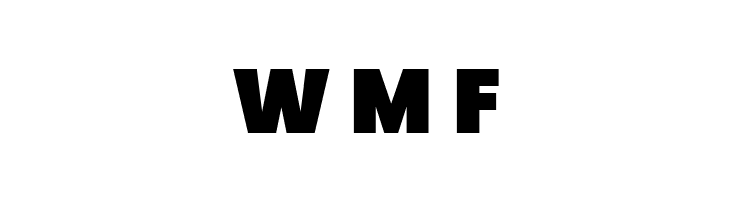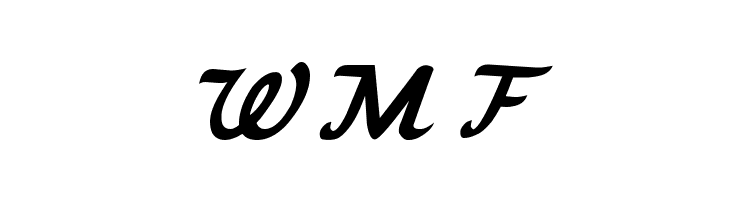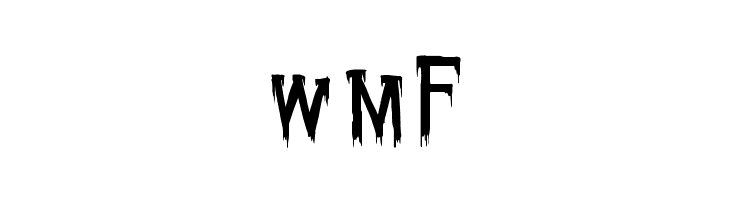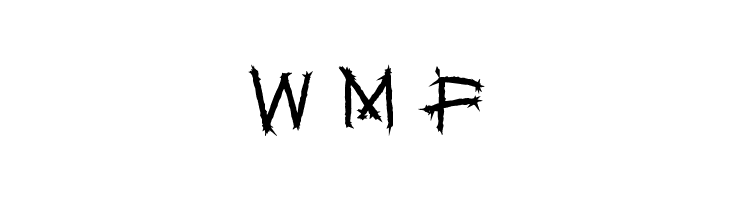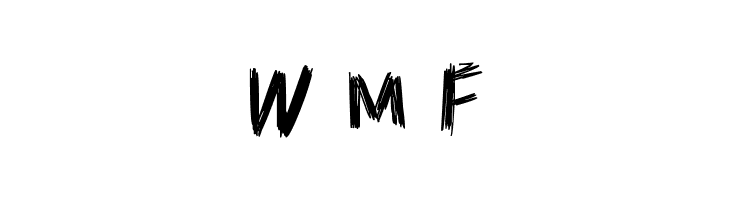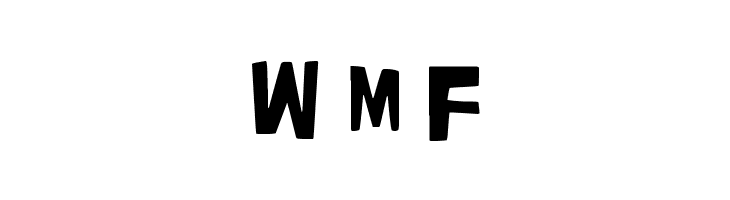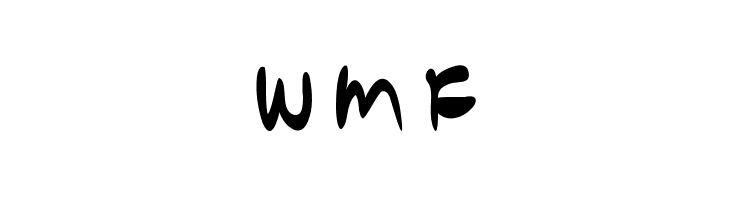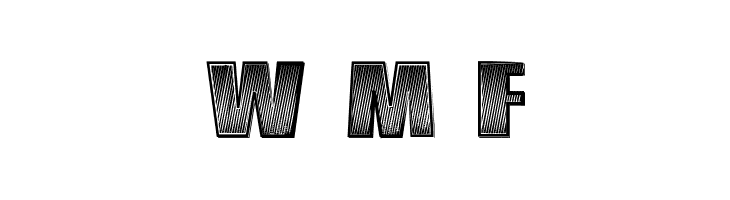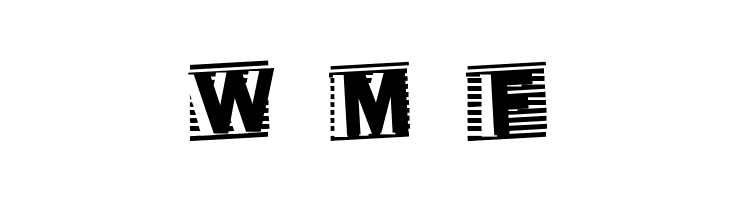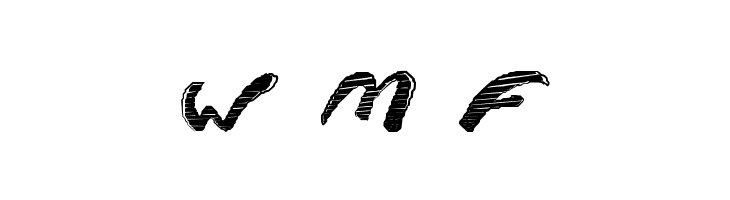
A playful, handwritten font with a casual and dynamic style.
A dynamic, handwritten font with bold, sweeping strokes and a playful, artistic style.
A bold, impactful font with strong, thick strokes for high visibility.
A casual, handwritten font with a playful and spontaneous feel.
A playful, decorative font with whimsical serifs and exaggerated curves.
A dramatic, jagged font with a distressed, eerie appearance.
A bold, shadowed font with a textured, three-dimensional effect.
A dynamic, hand-drawn font with bold, expressive strokes.
A jagged, thorn-like font with an edgy, rebellious aesthetic.
A bold, scratchy font with a rebellious, hand-drawn style.
A bold, angular font with a modern, edgy style.
A bold, textured font with a sketch-like, dynamic appearance.
A bold, textured font with diagonal lines, perfect for striking headlines.
A bold, futuristic font with a digital, angular design.
A bold, playful font with a tiger stripe pattern and 3D effect.
An elegant and flowing script font with a calligraphic style.
A playful, handwritten-style font with bold, irregular strokes.
A whimsical and elegant script font with flowing, dynamic strokes.
A playful, bold font with characters in tilted, irregular boxes.
A bold, textured font with a three-dimensional, energetic style.
A bold, striped decorative font with high contrast and a modern, edgy style.
A bold, 3D block font with a textured, industrial appearance.
A bold, striped font with a dynamic and eye-catching design.
A bold, striped font with a modern, tech-inspired aesthetic.
A bold, decorative serif font with intricate patterns and a playful style.
A whimsical, playful font with flowing, organic lines and a handwritten feel.
A bold, playful font with a dotted texture and rounded, bubbly letters.
A textured, hand-drawn font with a scratch-like appearance.
A cursive, handwritten font with elegant, flowing strokes.
A bold, brush-stroke font with a dynamic and energetic style.